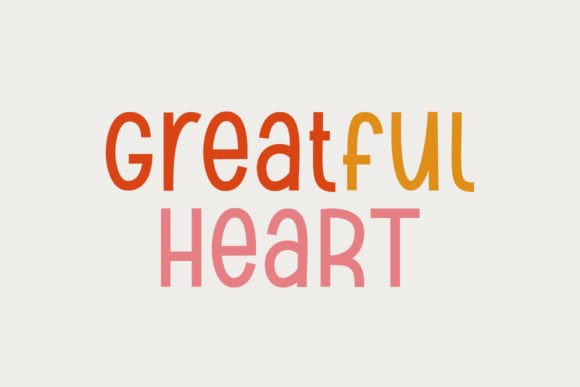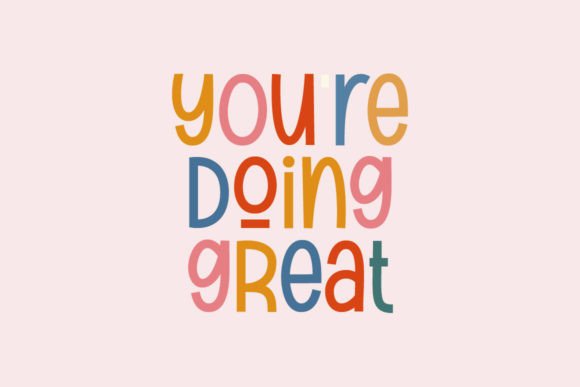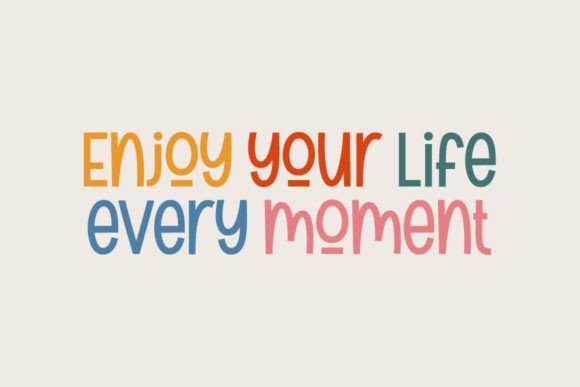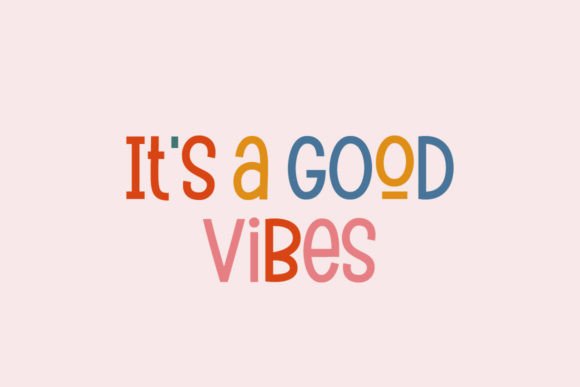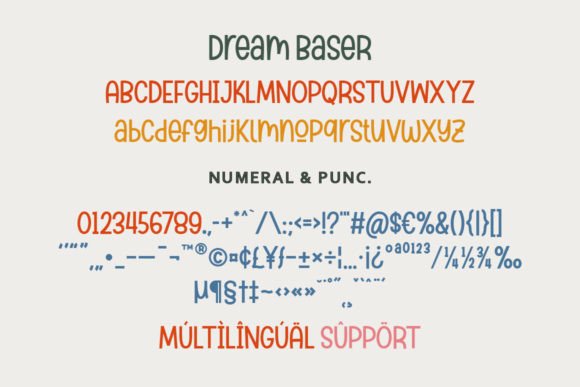
Dream Baser Font: The Fun and Cute Hand-Drawn Display Font You Need for Your Creative Projects
Are you tired of using the same old fonts in your creative projects? Look no further than Dream Baser Font, a fun and cute hand-drawn display font that’s sure to add a touch of personality to your designs. With its unique and playful style, Dream Baser Font is perfect for designers and crafters who want to make their projects stand out from the crowd.
What is Dream Baser Font?
Dream Baser Font is a hand-drawn display font that’s designed to add a touch of whimsy and fun to your creative projects. With its bold and playful lines, this font is perfect for creating eye-catching headlines, titles, and captions that are sure to grab attention. Whether you’re working on a graphic design project, a crafting project, or a digital project, Dream Baser Font is the perfect choice.
Features of Dream Baser Font
Dream Baser Font has a number of features that make it a great choice for designers and crafters. Some of its key features include:
- Hand-drawn design: Dream Baser Font is a hand-drawn font, which gives it a unique and personal touch.
- Fun and playful style: This font has a fun and playful style that’s perfect for adding a touch of personality to your designs.
- Bold and eye-catching: Dream Baser Font is a bold and eye-catching font that’s sure to grab attention.
- Perfect for creative projects: This font is perfect for a wide range of creative projects, including graphic design, crafting, and digital projects.
Why Use Dream Baser Font?
There are many reasons why you should use Dream Baser Font in your creative projects. Here are just a few:
- Add personality to your designs: Dream Baser Font is a great way to add personality and style to your designs.
- Stand out from the crowd: This font is unique and playful, which means it can help your designs stand out from the crowd.
- Versatile: This font is versatile and can be used in a wide range of creative projects.
Tips for Using Dream Baser Font
Here are a few tips for using Dream Baser Font:
- Use it for headlines and titles: Dream Baser Font is perfect for headlines and titles, where you want to grab attention.
- Experiment with different colors: This font looks great in a wide range of colors, so don’t be afraid to experiment.
- Pair it with other fonts: Dream Baser Font can be paired with other fonts to create a unique and interesting design.
Dream Baser Font is a fun and cute hand-drawn display font that’s perfect for designers and crafters who want to add a touch of personality to their creative projects. With its unique and playful style, this font is sure to grab attention and make your designs stand out from the crowd. Whether you’re working on a graphic design project, a crafting project, or a digital project, Dream Baser Font is the perfect choice.